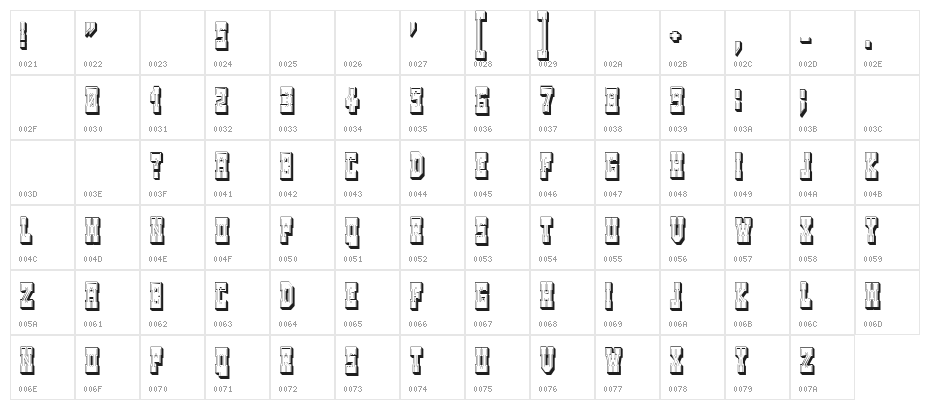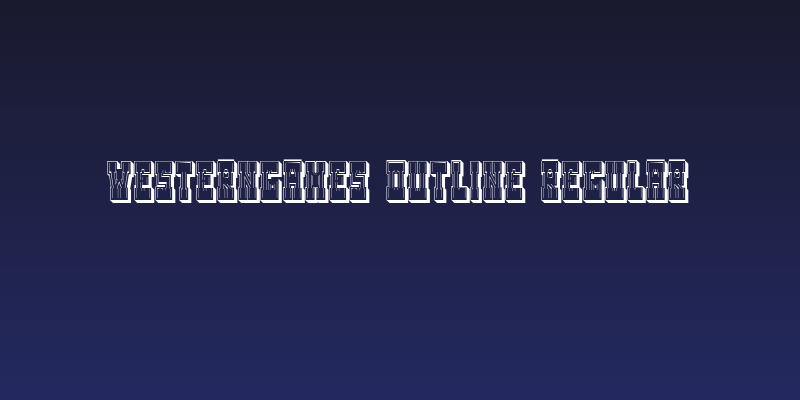
Westerngames Outline Regular Font
Westerngames Outline Regular Description
This font features a bold, three-dimensional outline style that evokes a sense of the Wild West. The characters are blocky and robust, with a shadow effect that adds depth and dimension. The uppercase letters are particularly striking, with sharp angles and a strong presence. The numbers and special characters maintain the same bold outline, ensuring consistency across all glyphs. This font is perfect for creating eye-catching designs that require a touch of ruggedness and adventure.
| Proposed Projects | Ideal for posters, logos, and signage that require a Western or adventurous theme. |